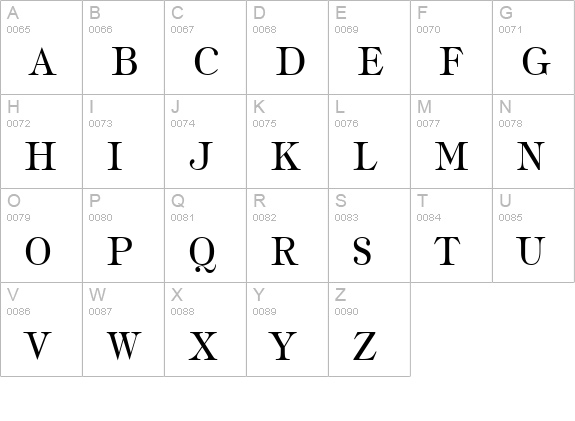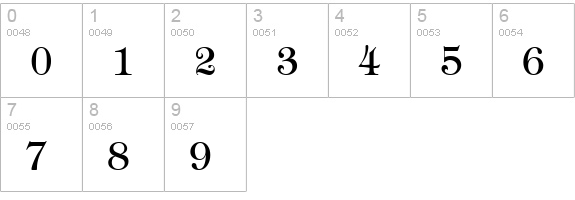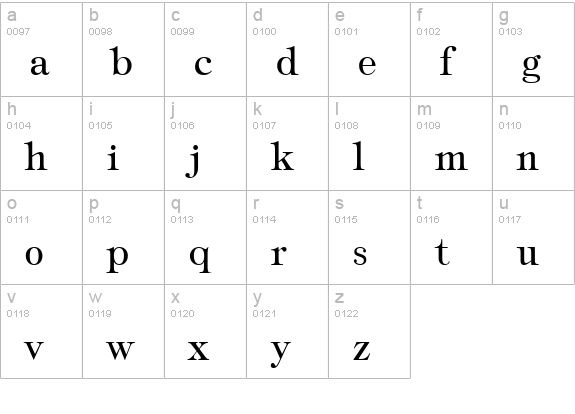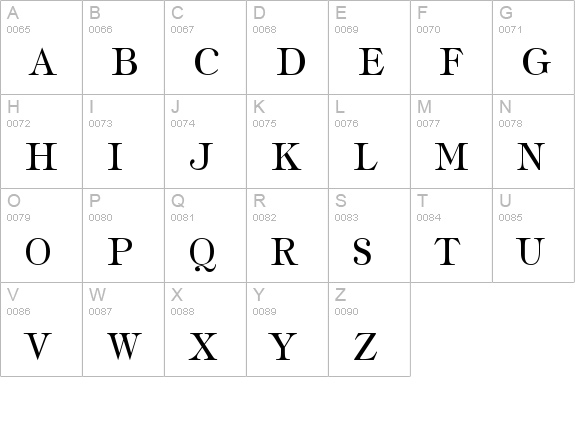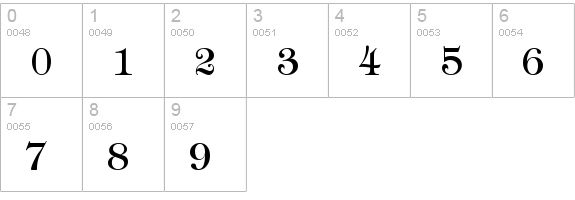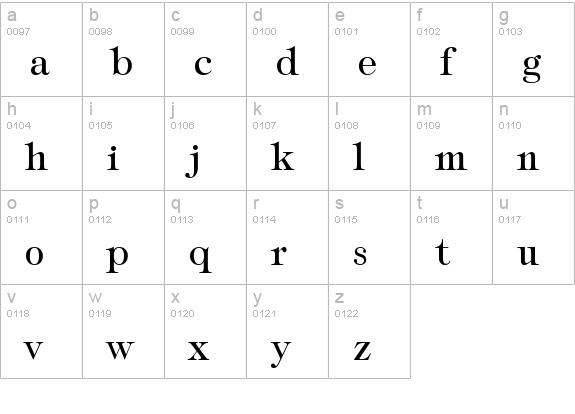
Cambridge font is a timeless and elegant typeface that exudes sophistication and class. With its clean lines and classic design, this font is perfect for a wide range of projects, from formal invitations to professional presentations. The versatility of Cambridge font makes it a go-to choice for designers looking to add a touch of refinement to their work. What's even better is that Cambridge font is completely free to download at FontsMarket.com, allowing you to access this premium font without any cost. Whether you're a seasoned designer or just starting out, Cambridge font is sure to elevate your designs and make a lasting impression. Download it today and enhance your projects with this exquisite typeface.